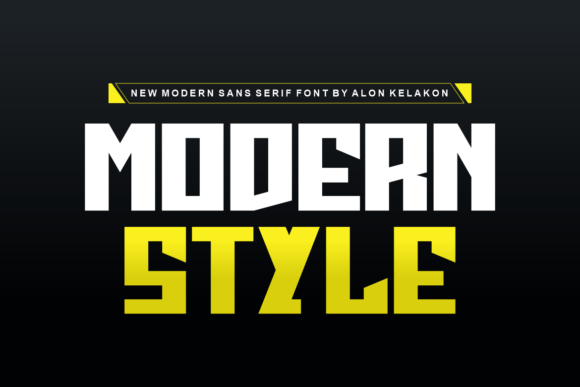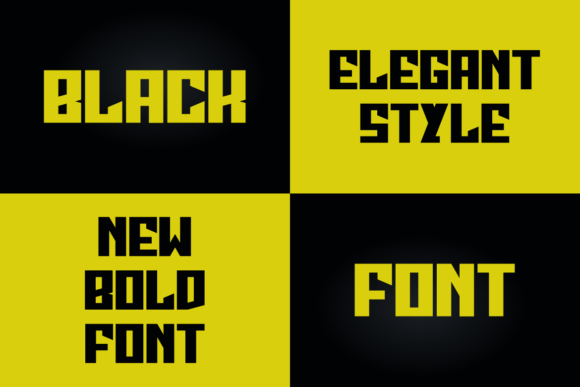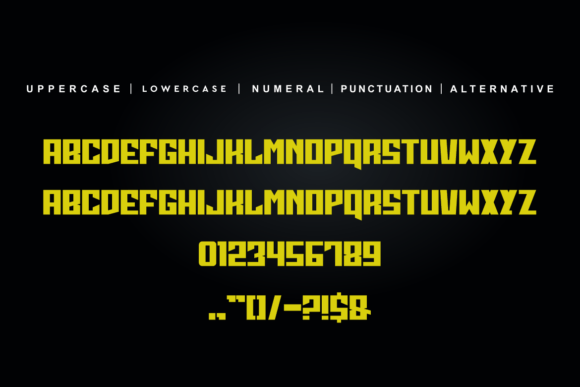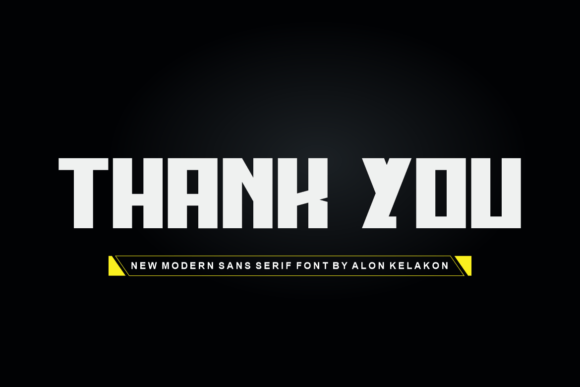
The Designer’s Delight: Black Cardner Font
As a designer, I’m always on the lookout for fonts that can elevate my work and make it stand out. And, trust me, Black Cardner does just that. This bold and modern display font has won my heart with its incredibly distinct and timeless style. In this article, I’ll share my love for Black Cardner, its features, and how to make the most of it in your designs.
What I Love About Black Cardner ✨
• Bold and modern design: Black Cardner is perfect for making a statement in your designs.
• Distinctive style: Its unique features make it easily recognizable and memorable.
• Timeless appeal: Despite being modern, Black Cardner has a classic feel that won’t go out of style anytime soon.
• Versatile: It can be used for a wide range of design projects, from logos and branding to posters and social media graphics.
• ⚠️ Limited use for body text: Due to its bold nature, Black Cardner is best suited for headlines and titles, rather than body text.
• ⚠️ May require adjustment for certain languages: As with any font, some languages may require adjustments to ensure proper kerning and spacing.
The Backstory of Black Cardner
While the origins of Black Cardner are shrouded in mystery, it’s said that the font was designed by a young typographer who wanted to create a bold and modern font that would make a statement. Inspired by the geometric shapes of the city, Black Cardner was born – a font that’s both timeless and contemporary.
What type of projects is Black Cardner best suited for? Black Cardner is perfect for projects that require a bold and modern font, such as logos, branding, posters, and social media graphics.
Can I use Black Cardner for body text? While Black Cardner can be used for body text, it’s not recommended due to its bold nature. It’s best suited for headlines and titles.